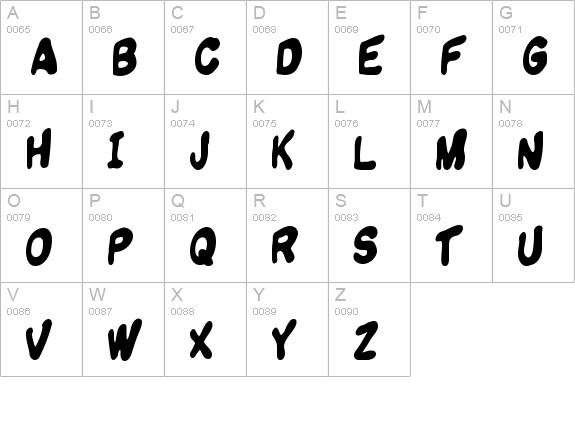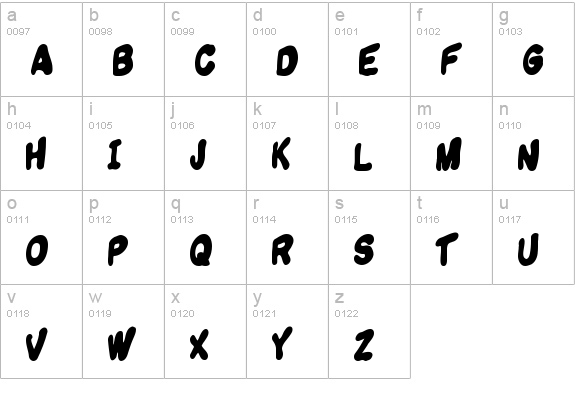
Komikandy Font Details
Introducing Komikandy font, a charming and playful typeface that exudes a sense of fun and whimsy. With its rounded edges and slightly irregular letterforms, Komikandy is perfect for adding a touch of personality to your designs. Whether you're working on a children's book, a greeting card, or a poster for a lively event, this font will bring a sense of joy and creativity to your projects. What's even better is that Komikandy is available for free download at FontsMarket.com. Yes, you read that right - you can add this delightful font to your collection without spending a penny. So why wait? Head over to FontsMarket.com and start incorporating Komikandy into your designs today!